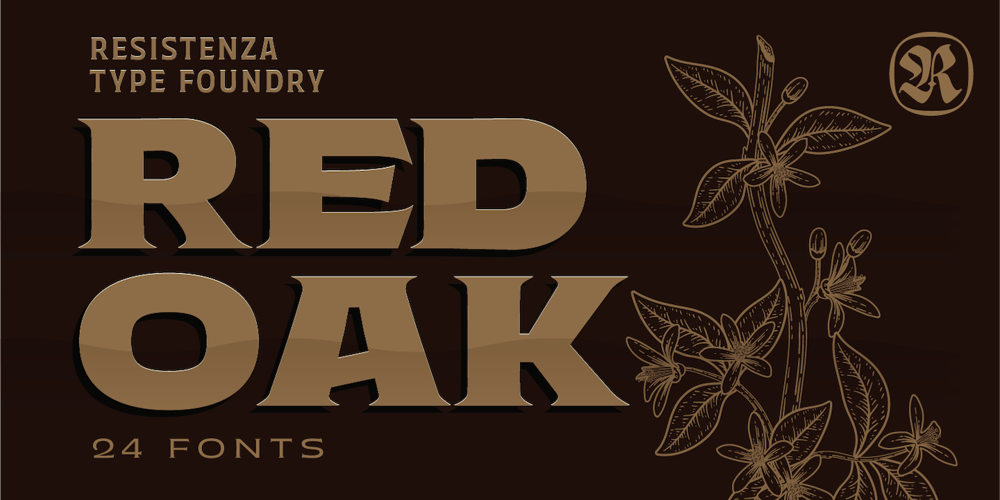
Red Oak Font Family was designed by Giuseppe Salerno, Paco González and published by Resistenza. Red Oak contains 24 styles and family package options. Check out Red Oak, giving a fresh vibe to the timeless wedge-serif style. It’s all about blending class with flexibility. Red Oak rocks those narrow serifs that elegantly reach out, adding a touch of finesse to any text. What’s cool about Red Oak? Its serifs! They’re subtle but got this unique charm, smaller yet totally eye-catching against those bold letters.This font’s got you covered with a bunch of styles, 24 to be exact, from slim to stretched-out. Whether you’re jazzing up a brand, laying out a magazine, or spicing up a website, Red Oak brings that vintage flair into the modern world.Picture those narrow serifs pointing out like old-school engravings but with a twist. They mix and match beautifully with the boldness of the letters, striking that perfect balance between retro and modern vibes. From print to pixels, Red Oak is your go-to for all things design.So, whether you’re doodling a logo, coding a website, or putting together a zine, Red Oak’s got your back. It’s like style and functionality had a baby, and its name is Red Oak.